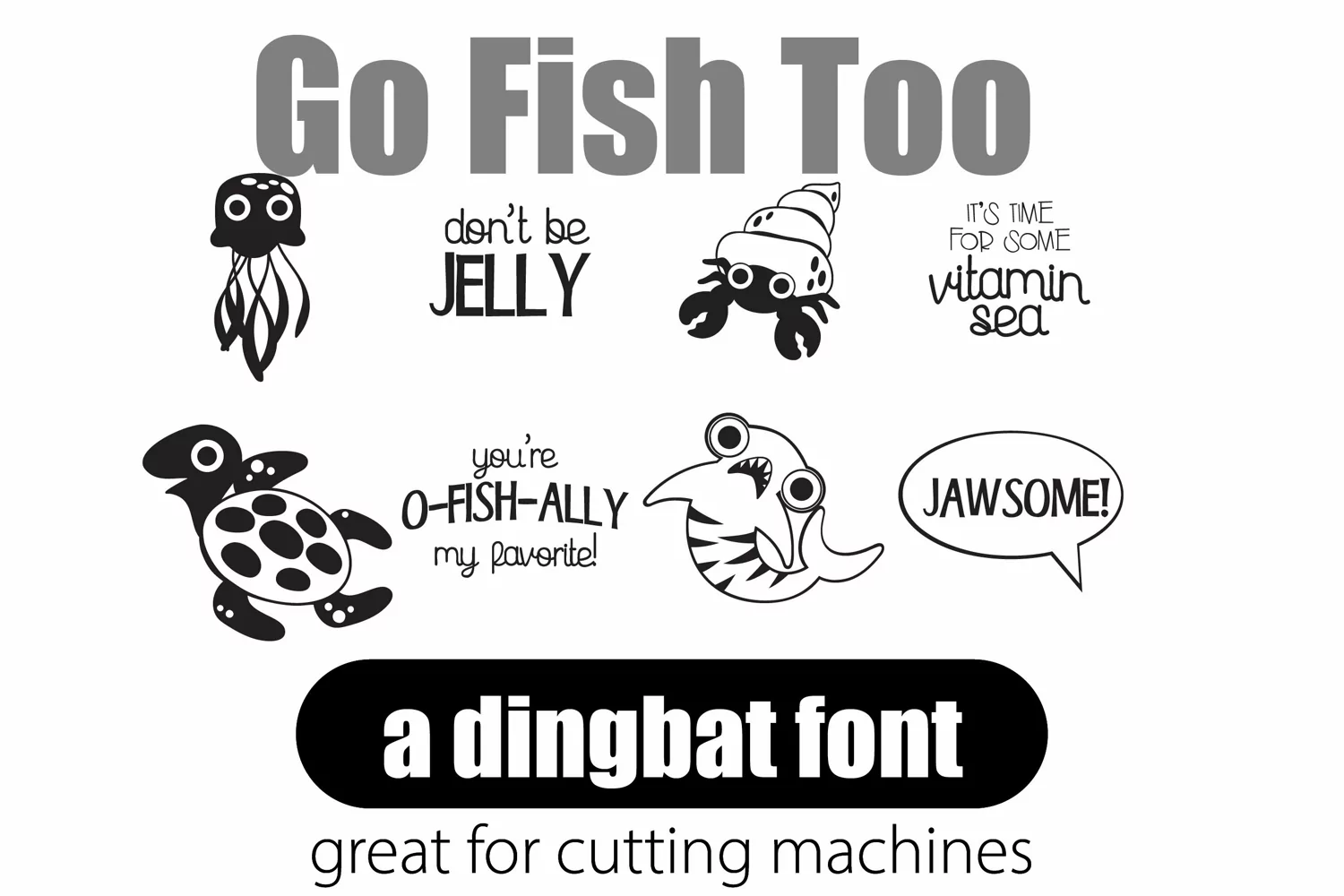
There are two dingbat fonts in this Go Fish bundle. One sports fish and the other sports undersea creatures and puns. Each has at least 26 glyphs. Perfect for vinyl and cutting machines!